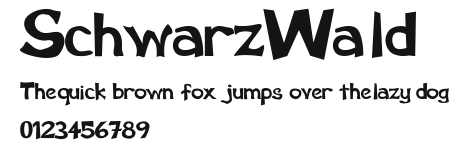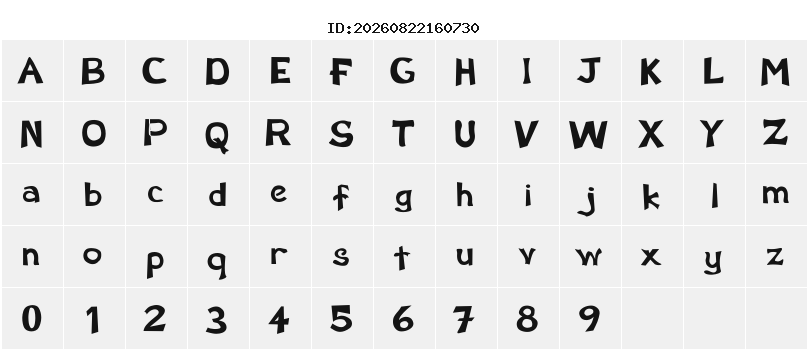
• Font Name: SchwarzWald
• Full Font Name: SchwarzWald
About SchwarzWald.ttf
SchwarzWald.ttf is a modern, elegant sans-serif font designed for ultimate readability and visual harmony. Perfect for branding, headlines, web design, and print materials.